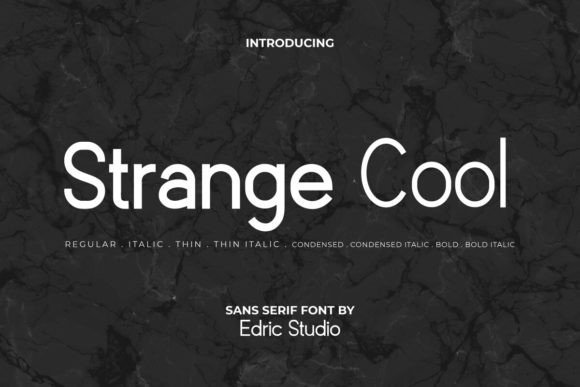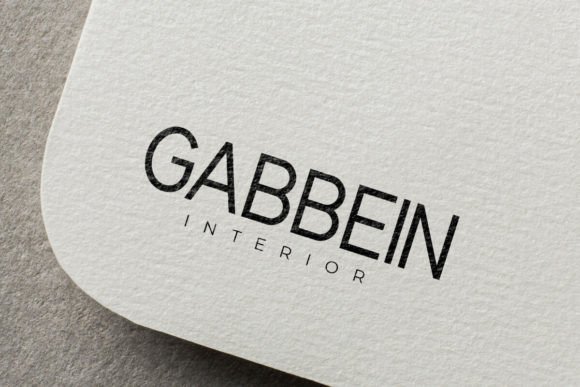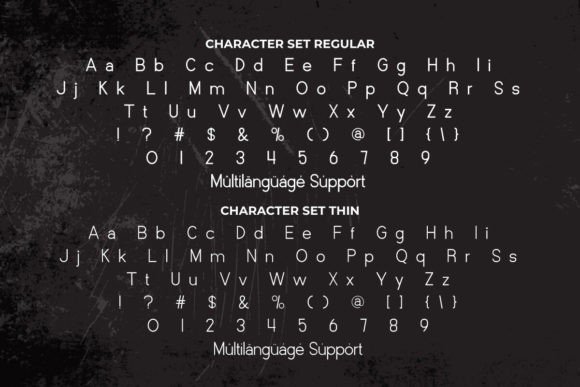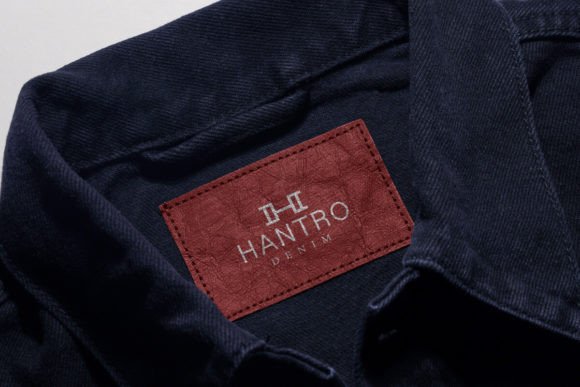
Strange Cool Font
About the Strange Cool Font
Unleash your creativity with Strange Cool Font, a versatile font perfect for a wide range of applications. Strange Cool Font is a clean casual sans serif font. This font provides eight styles: Regular, Thin, Italic, Thin Italic, Condensed, Condensed Italic, Bold, and Bold Italic that you want to use right away. This font is inspired by classic typefaces on top coffee brands making it suitable for any industry, such as architecture, author, barber, café, clothing brand, furniture, movie, photography, printing, publishing, real estate, restaurant, etc.
Strange Cool Font comes with a full set of Uppercase and Lowercase Basic Characters, Numbers, a large range of Punctuation, and symbols. It has a stunning character set, perfectly managed with well-spaced and kerning. Strange Cool Font will be able to complement for any project including body text, brand logo, brochure, catalog, header, invitation, label, packaging design, poster, screen print, signage, stationery, sticker, watermark, website, and anything related to the use of slick sans serif.
Strange Cool Font Usage Examples
Strange Cool Font Example